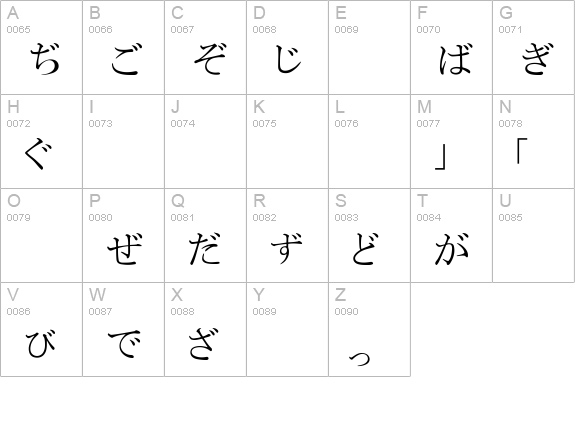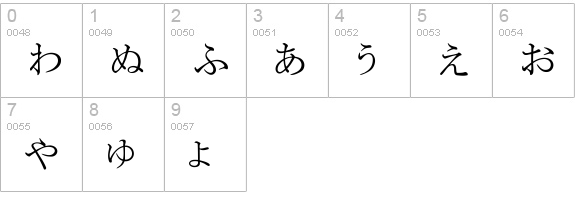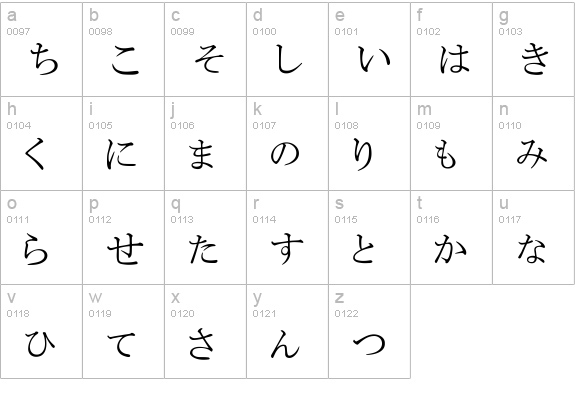
HiraganaBrush Font Details
HiraganaBrush font embodies the graceful and artistic strokes of traditional Japanese calligraphy, capturing the essence of elegance and sophistication. With its fluid lines and intricate details, this font is perfect for creating stunning designs that exude a sense of cultural richness and depth. What sets HiraganaBrush font apart is its unique blend of modern design with traditional Japanese aesthetics, making it a versatile choice for a wide range of projects. Whether you're designing a poster, branding materials, or digital artwork, this font adds a touch of sophistication and refinement to any project. Best of all, HiraganaBrush font is available for free download at FontsMarket.com, giving you easy access to this exquisite typeface for all your creative endeavors. Embrace the beauty and artistry of HiraganaBrush font to elevate your designs to new heights.